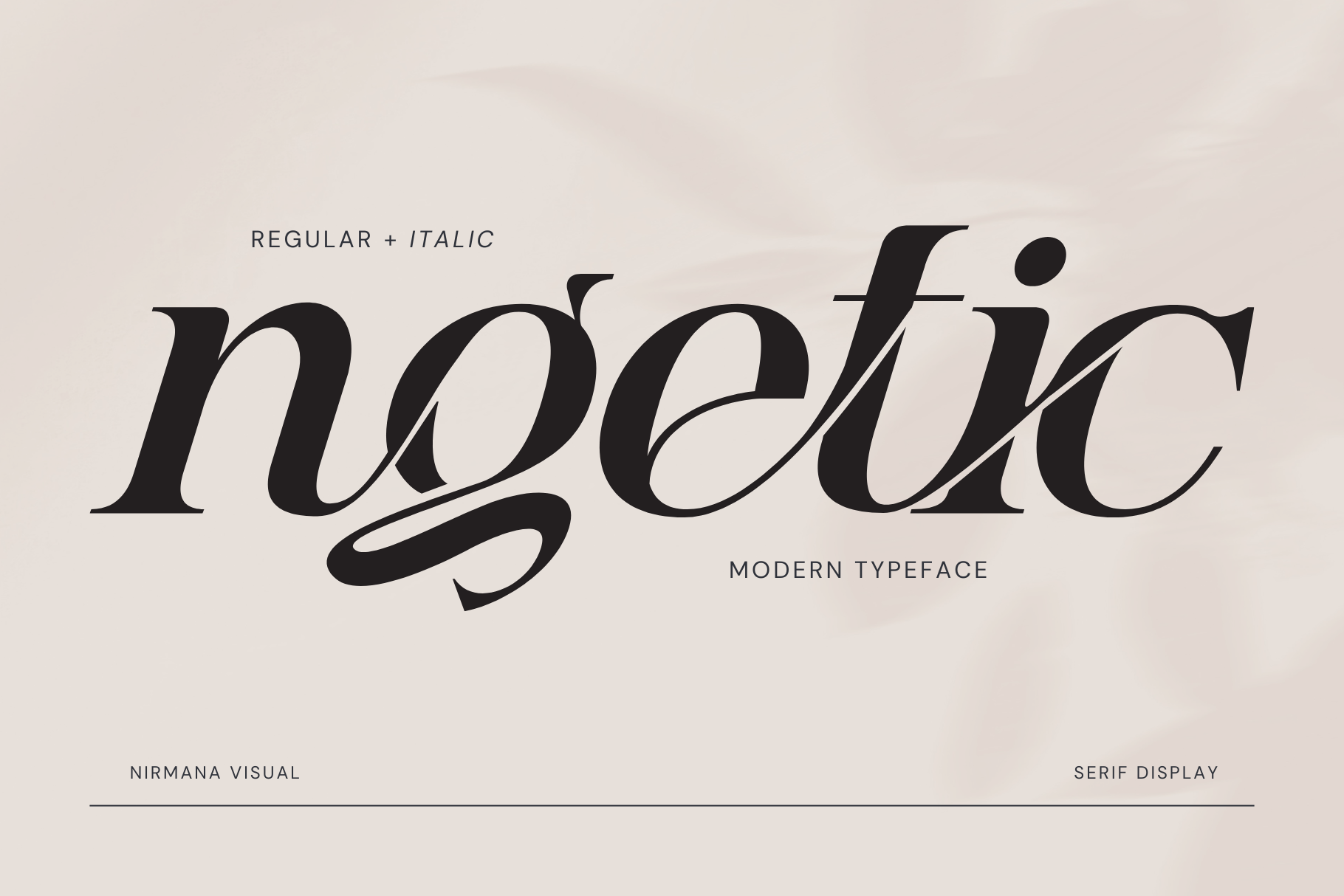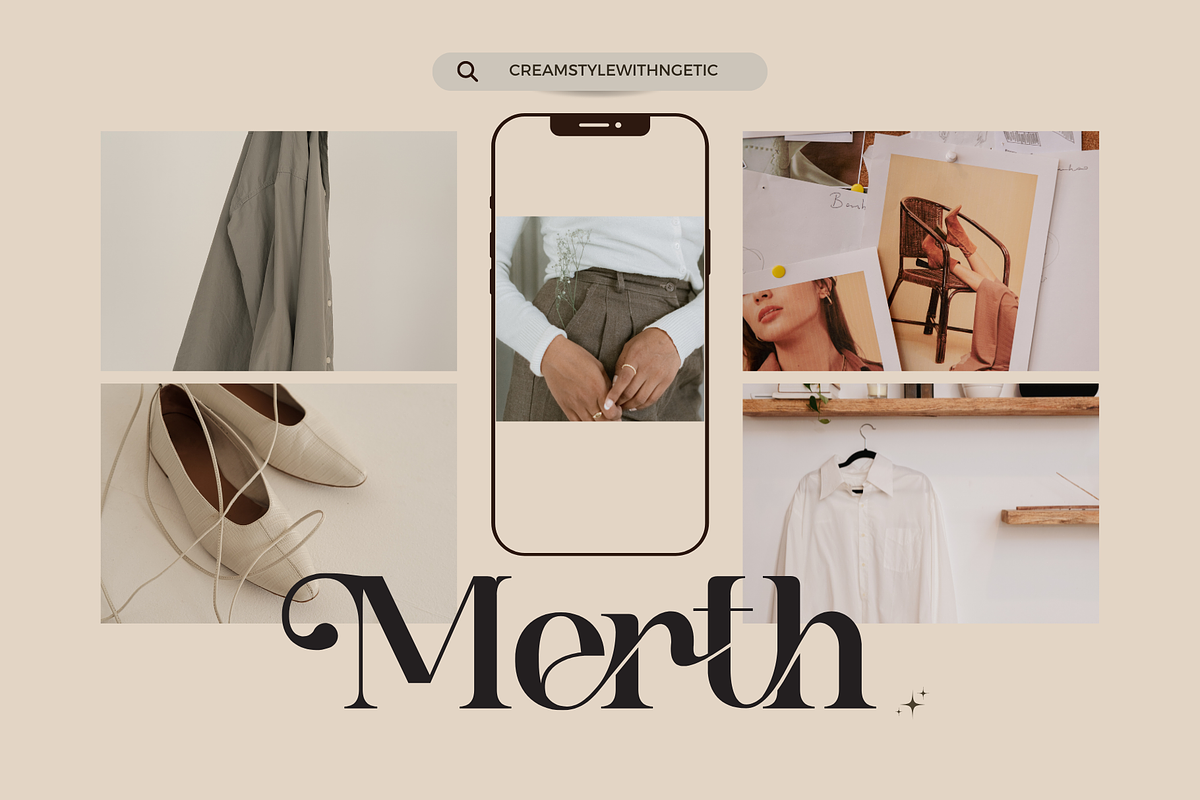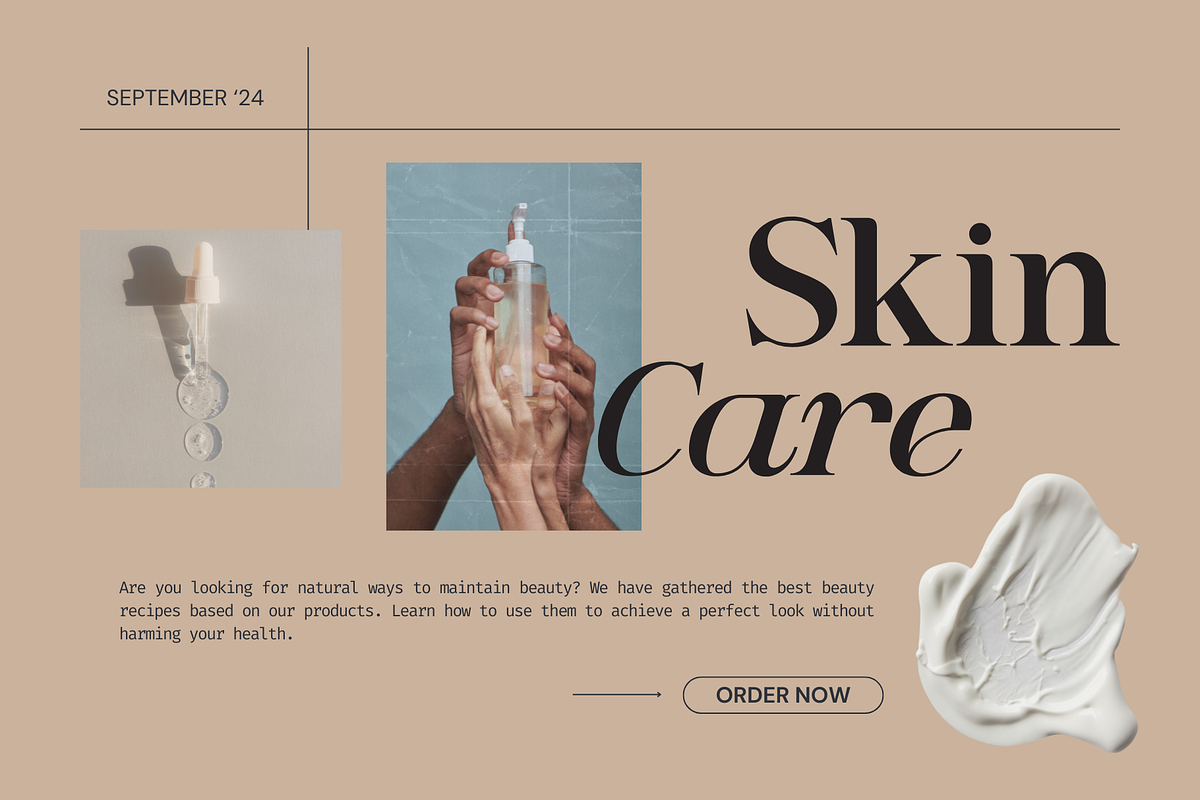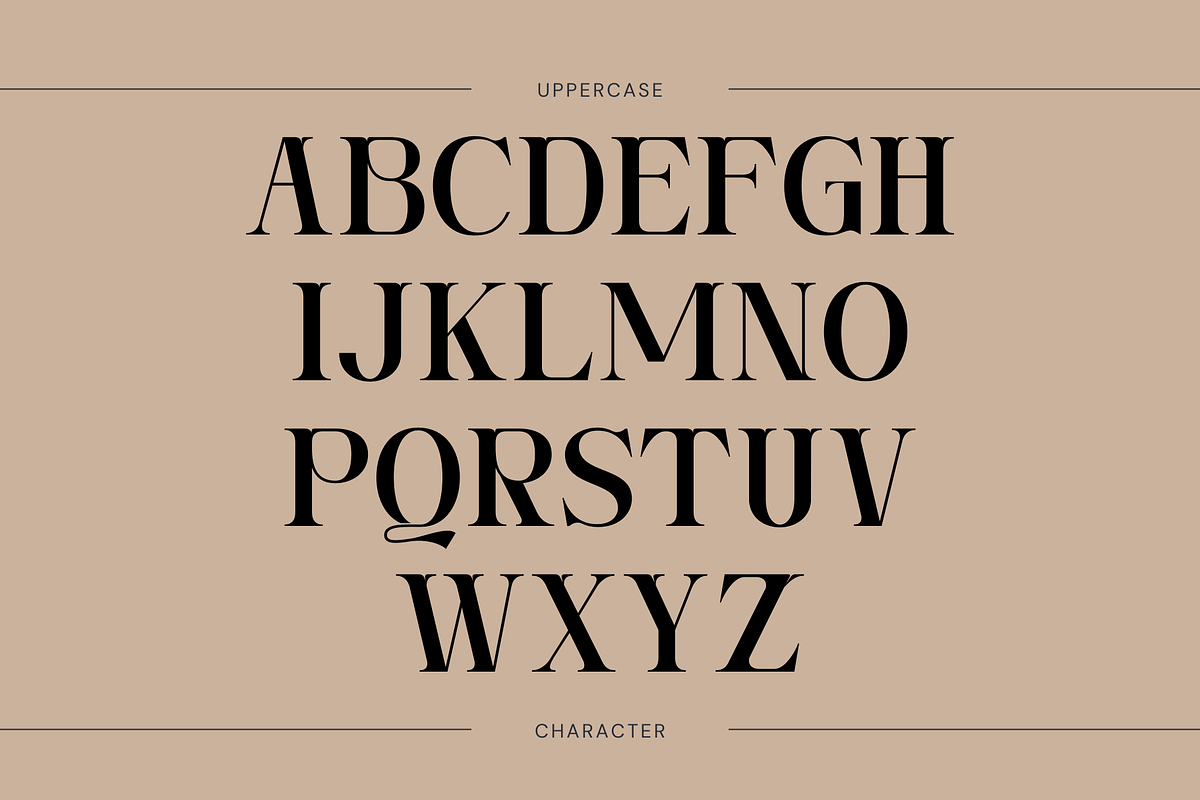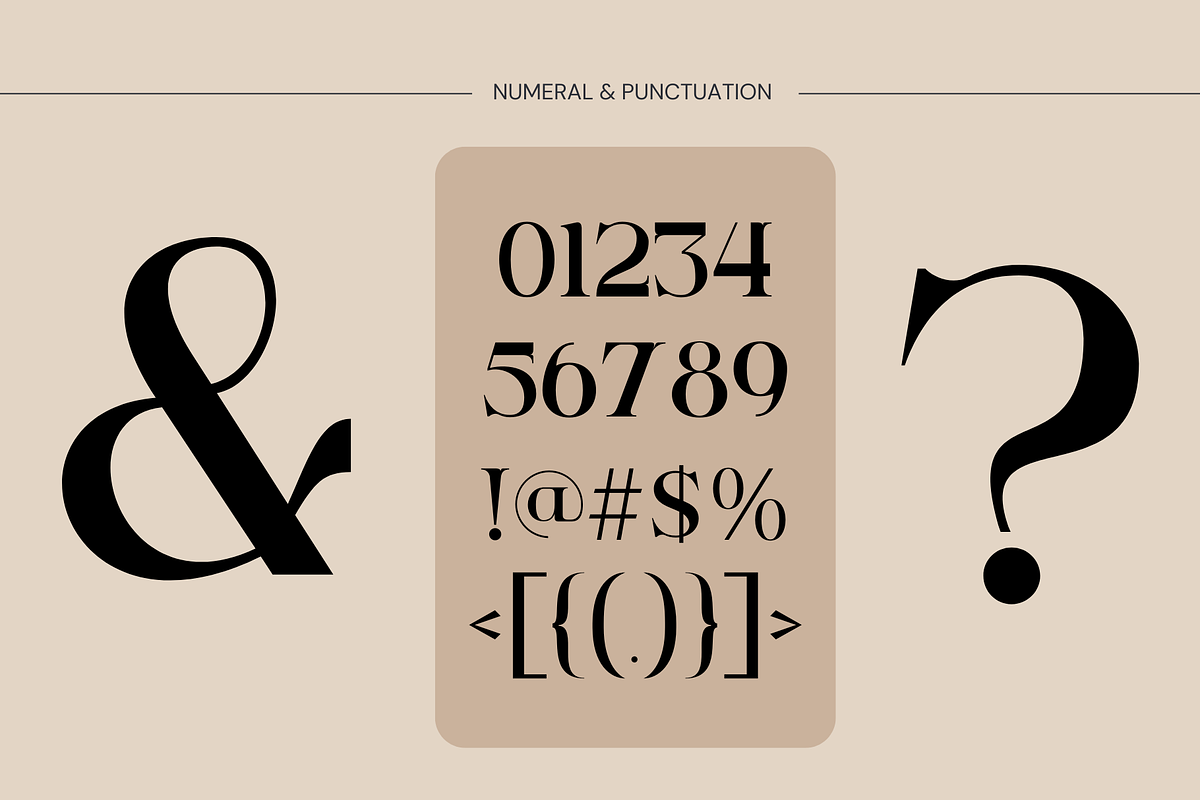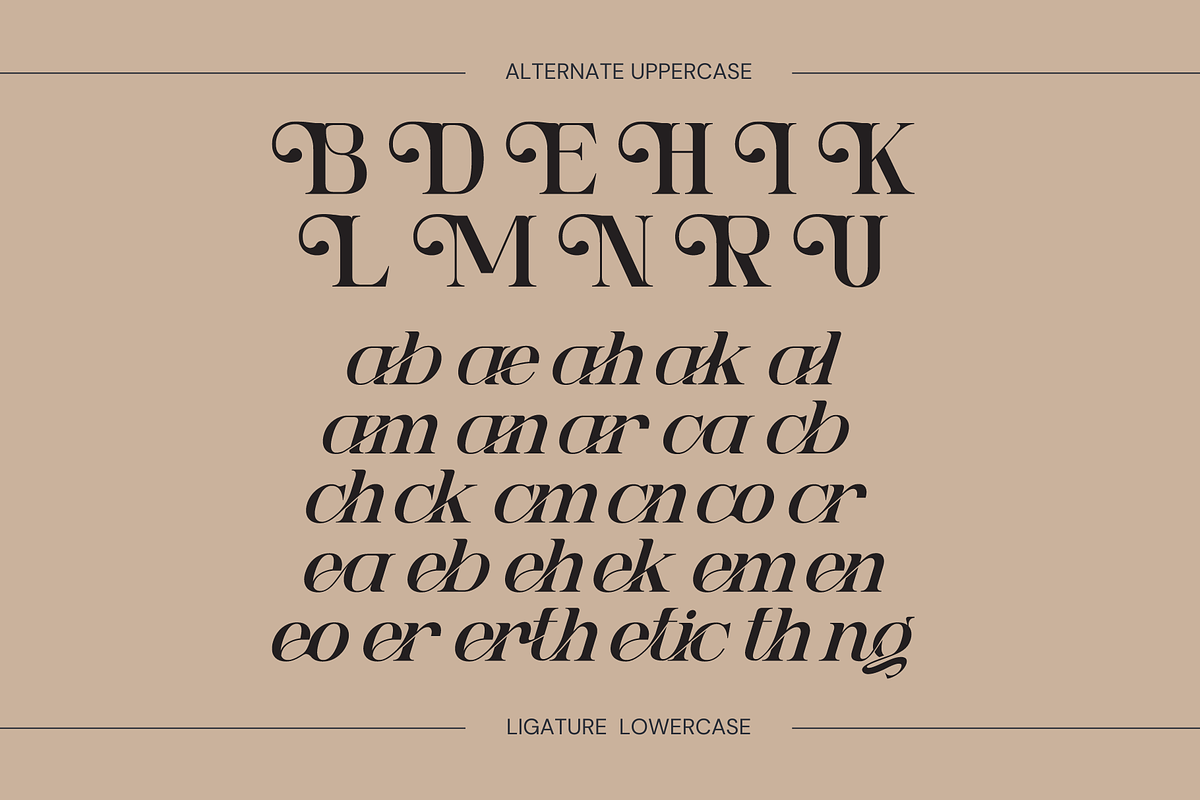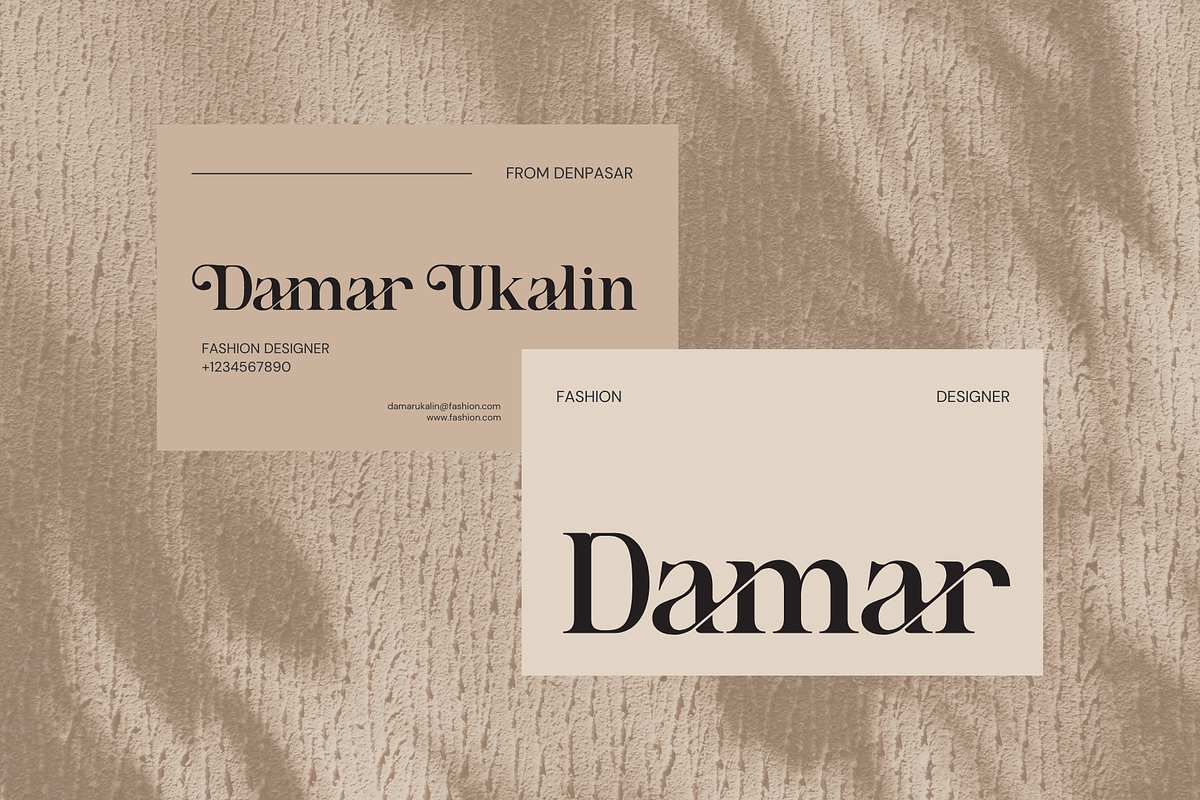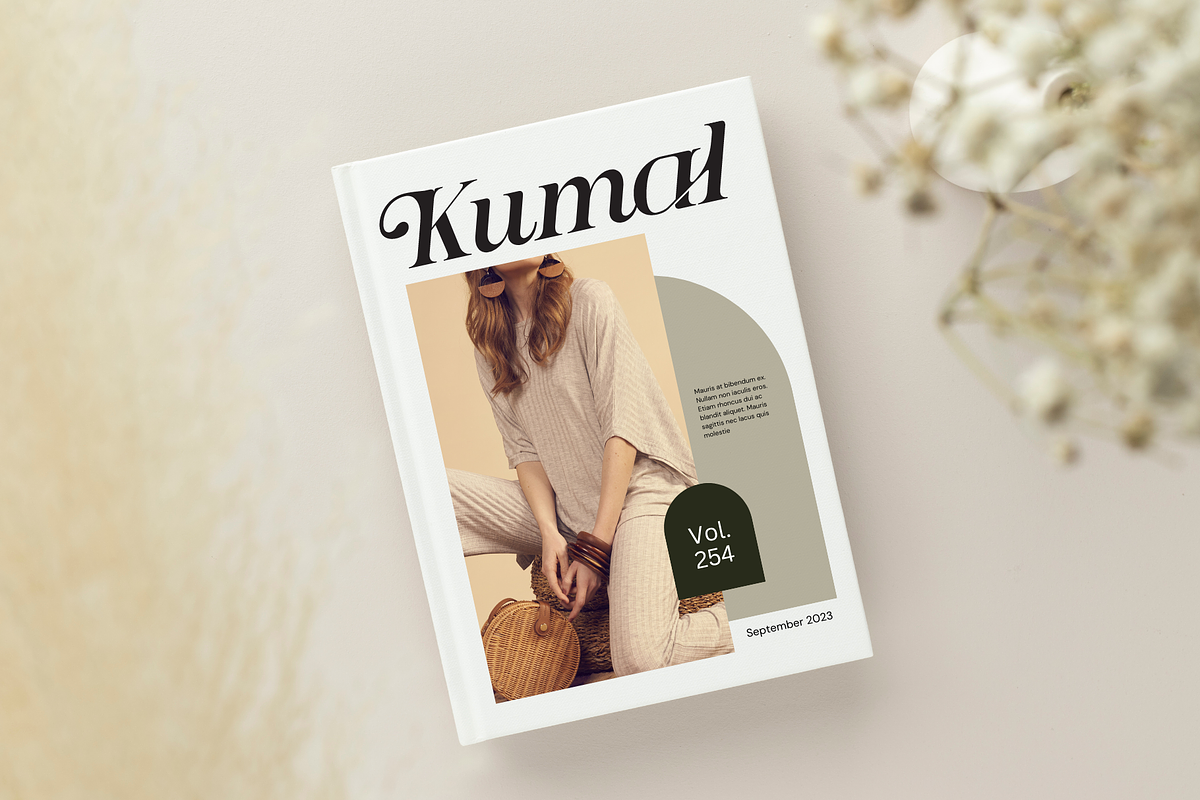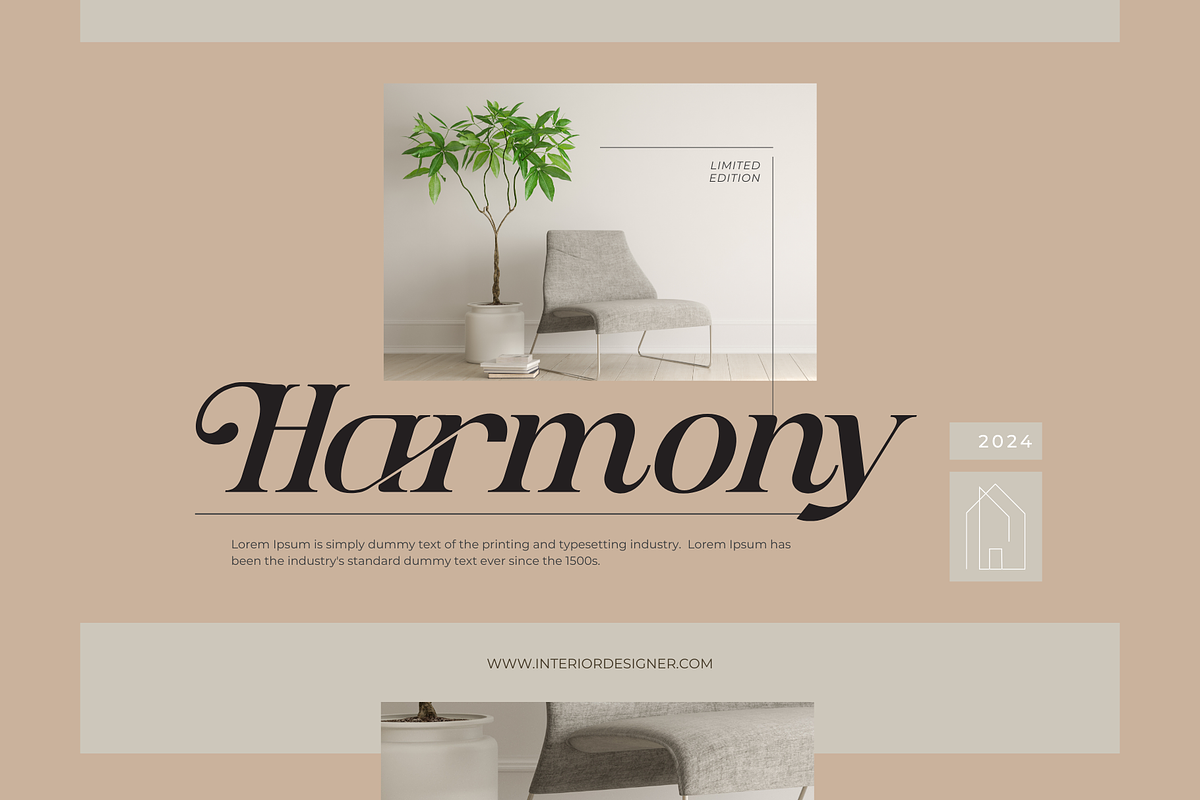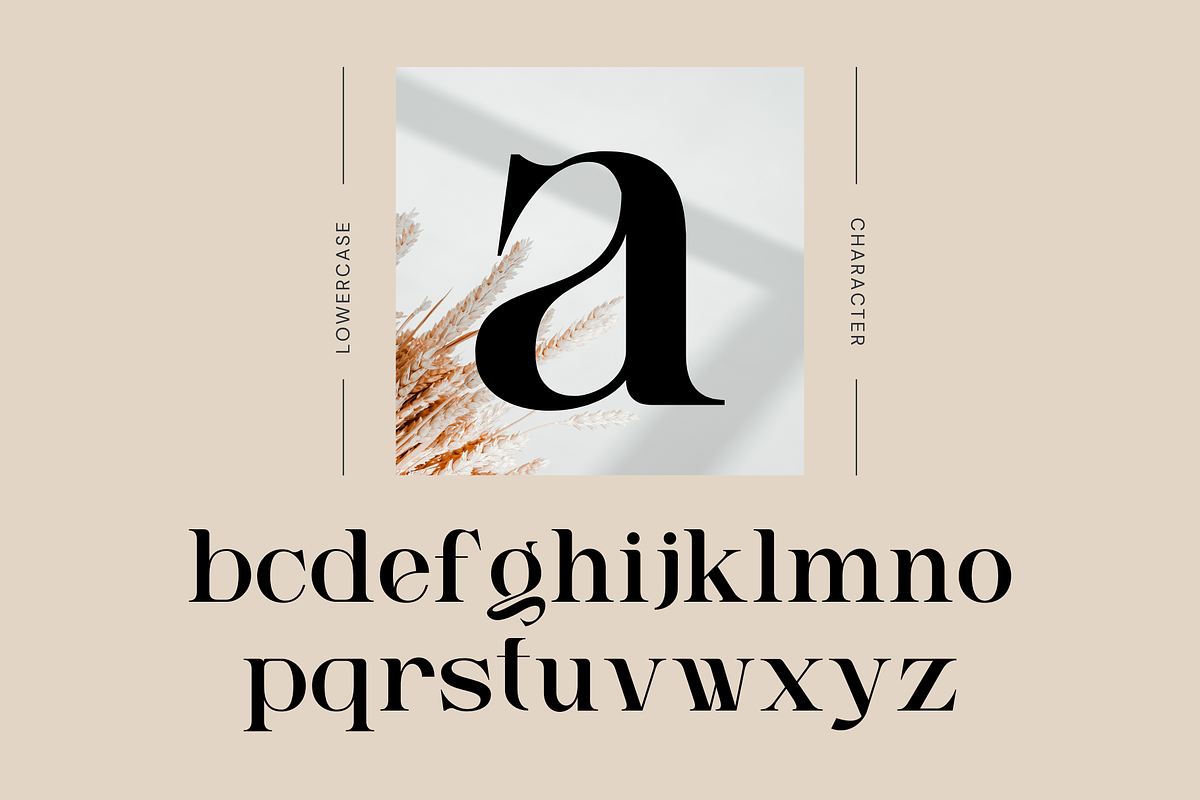
Ngetic Modern - Branding Logo Font
Ngetic Modern Font offers beautiful typographic harmony for a diversity of design projects, including logos & branding, social media posts, advertisements & product designs.